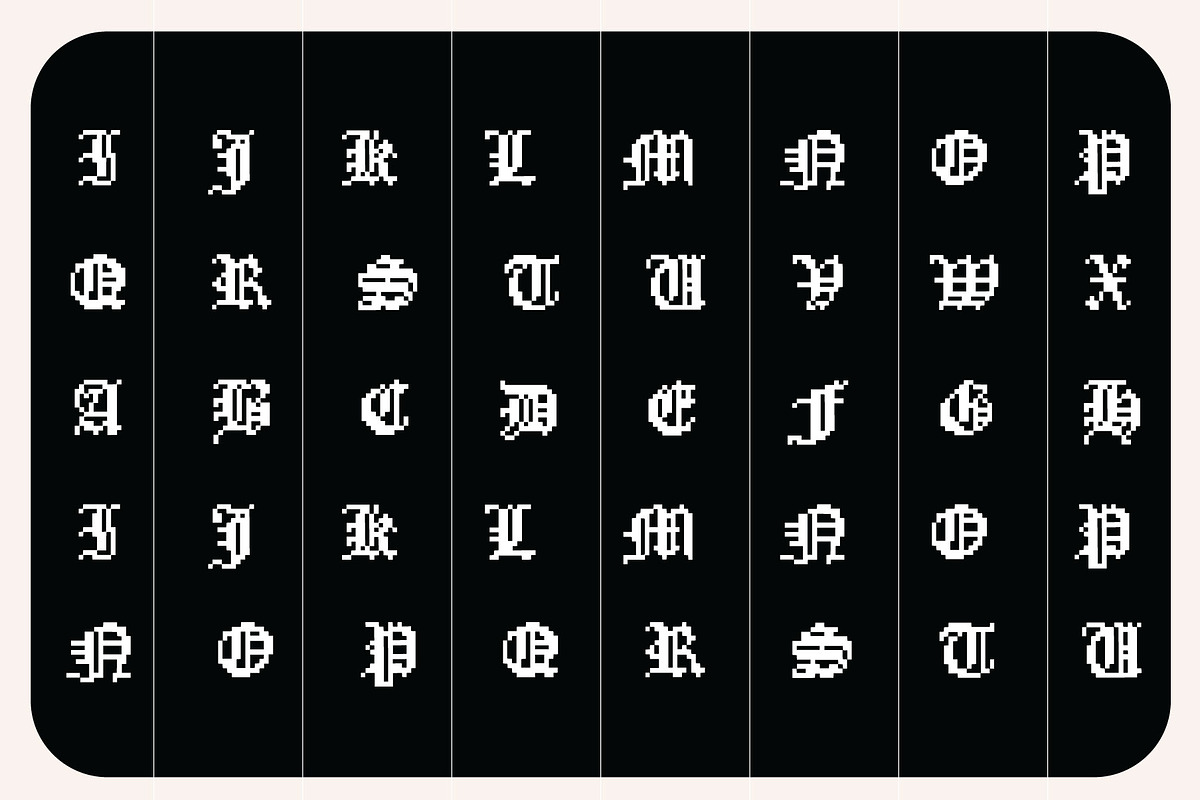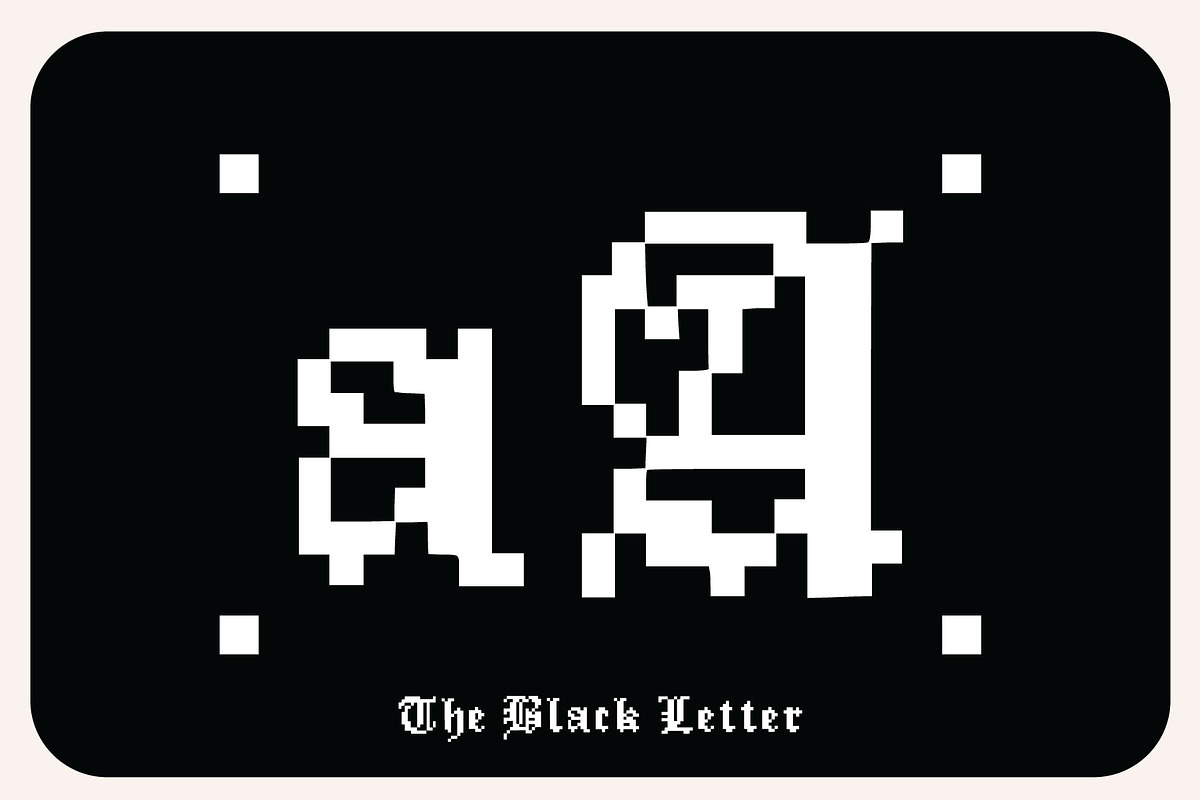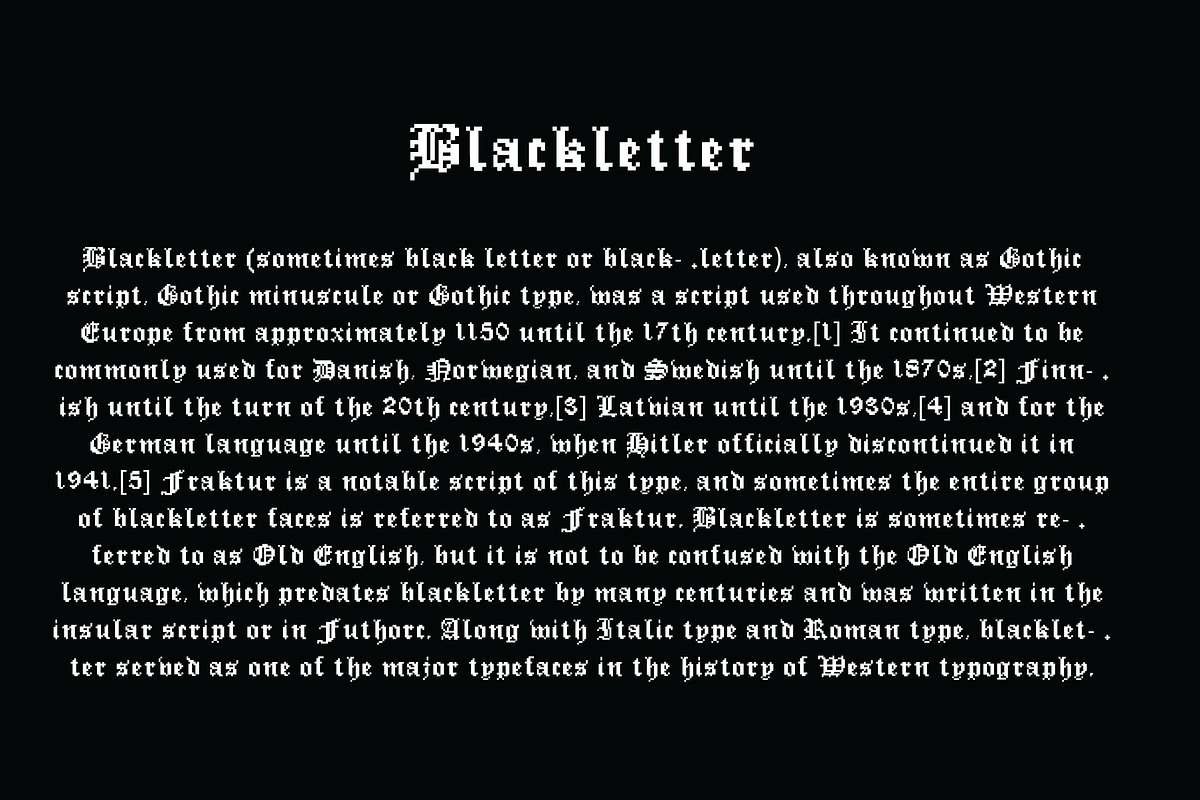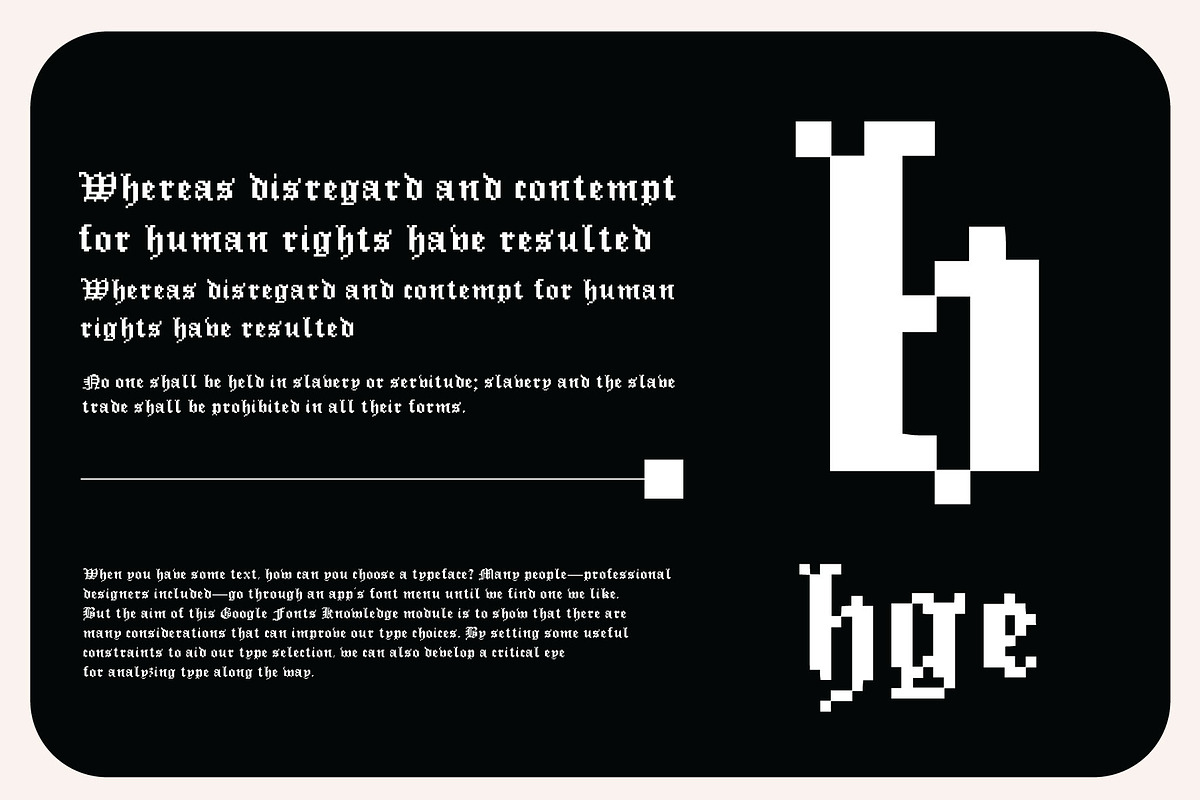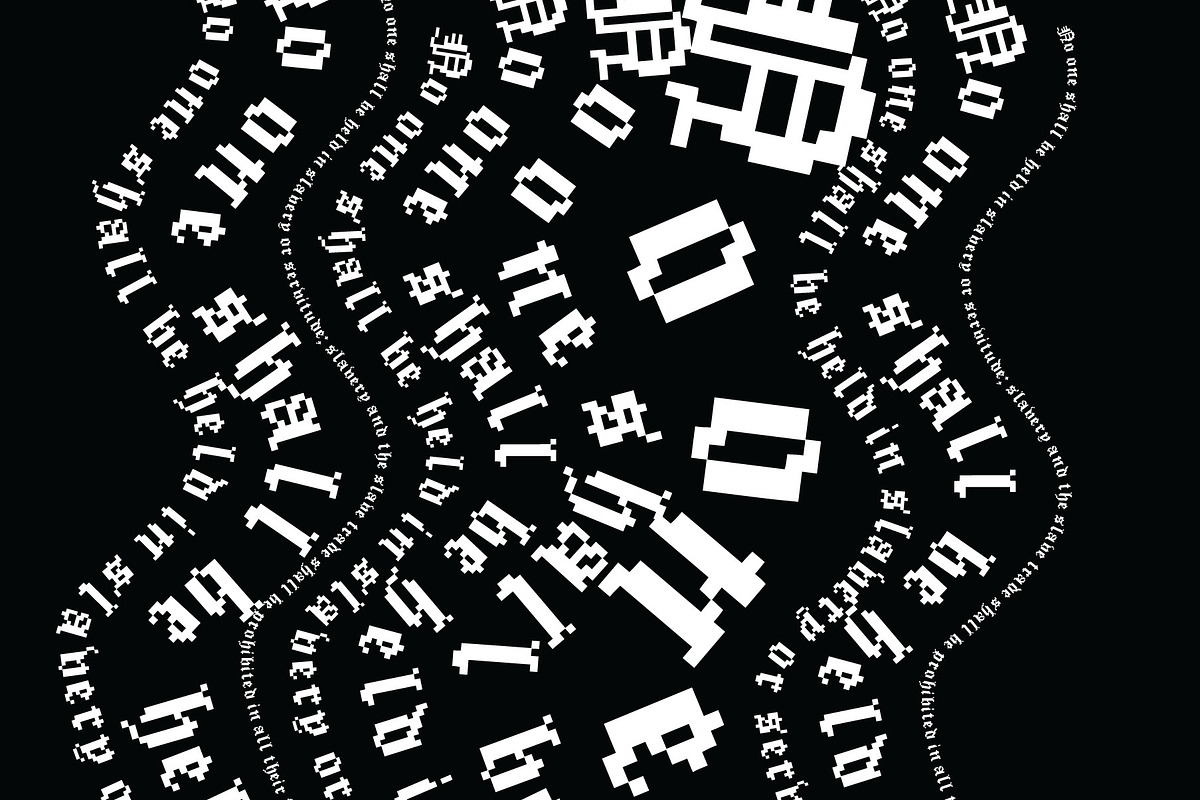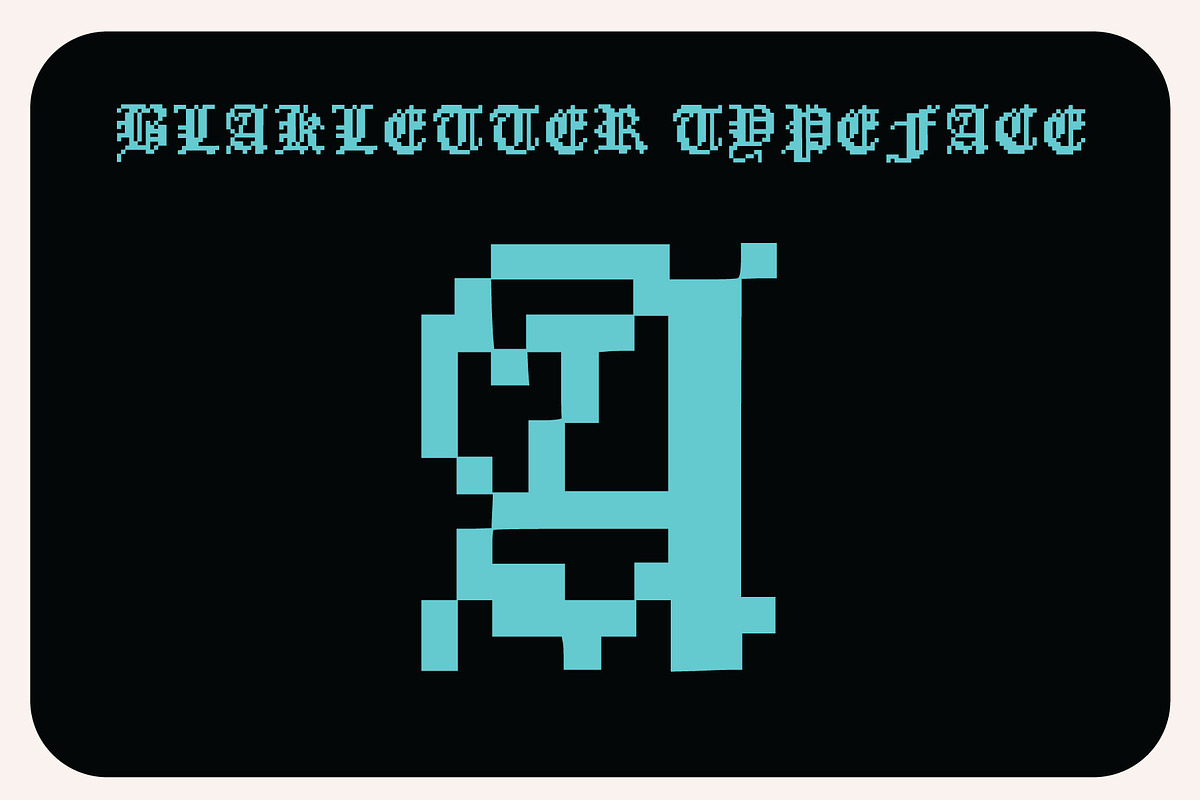
Blackletter Eight
The Blackletter Eight Letter
8-bit refers to a computing or graphics system that operates with a data width of 8 bits. In simple terms, it means that the system can process and represent information using 8 binary digits or bits. This typically allows for a total of 256 different values to be represented, ranging from 0 to 255
Blackletter (sometimes black letter or black-letter), also known as Gothic script, Gothic minuscule or Gothic type, was a script used throughout Western Europe from approximately 1150 until the 17th century.[1] It continued to be commonly used for Danish, Norwegian, and Swedish until the 1870s,[2] Finnish until the turn of the 20th century,[3] Latvian until the 1930s,[4] and for the German language until the 1940s, when Hitler officially discontinued it in 1941.[5] Fraktur is a notable script of this type, and sometimes the entire group of blackletter faces is referred to as Fraktur. Blackletter is sometimes referred to as Old English, but it is not to be confused with the Old English language, which predates blackletter by many centuries and was written in the insular script or in Futhorc. Along with Italic type and Roman type, blackletter served as one of the major typefaces in the history of Western typography.